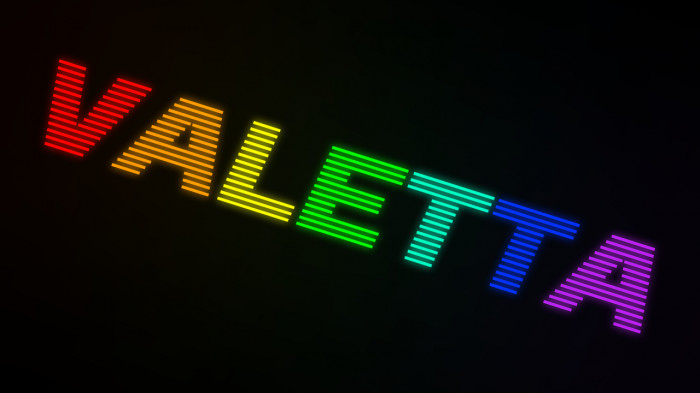
Good to see you back. Nice font.
Welcome back Kix!
Hello again! Nice to see U! And waiting for the rest of this pretty font, pal.
On topic: Nice font.
This does have some Helvetica vibes along it…
@kix Welcome back!
Feels good and familiar to be here again. So crazy i started this baby 11 years ago :D Old fellas are good for the soul
How about numbers and /?
This feels like racecars. 9.9/10 Only becuase I want lowercase.
valettaby kix